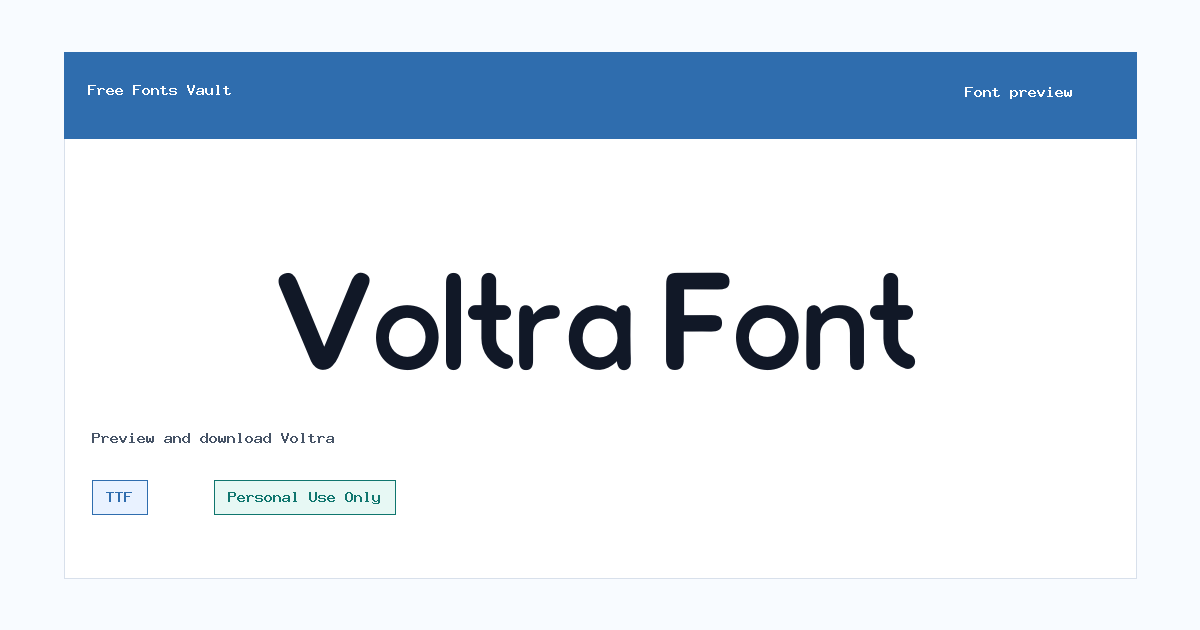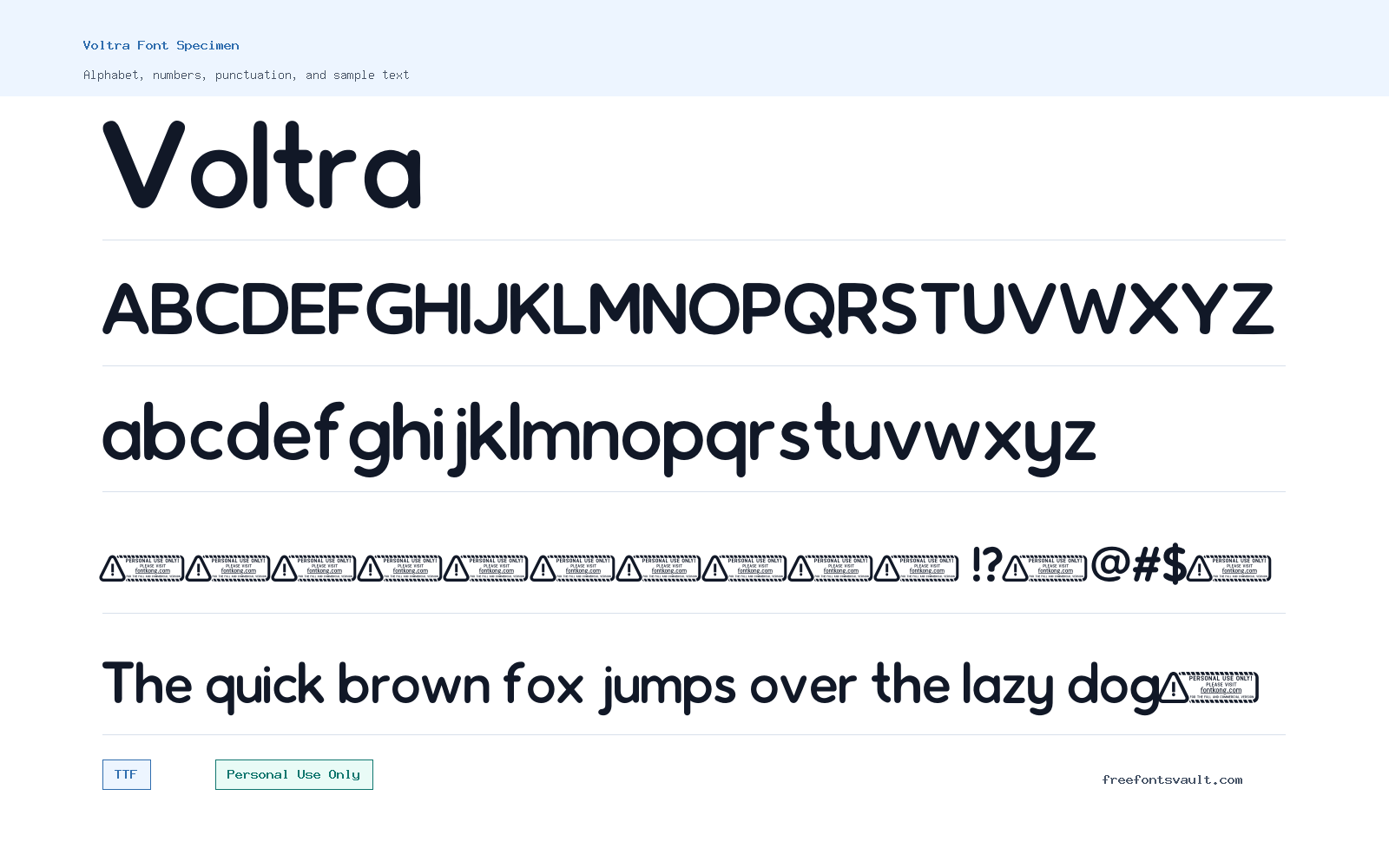
Voltra
Voltra is a display font from Kong Font with a bold, logo-ready feel. It is best approached as a font for short, visible text rather than long paragraphs, especially when you want a title, name, or graphic layout to stand out quickly.
About Voltra
Voltra works well for projects where the lettering needs to carry the design. The name and file label point to a logo-style font, and the regular TTF file gives you a straightforward way to test it in common design apps. Use the preview text to check how your own words look before downloading, because display fonts can change character depending on the length of the text, letter spacing, and the mix of uppercase and lowercase letters.
For logo concepts, Voltra is most useful at larger sizes where its shape and rhythm can be seen clearly. Try it with brand names, poster headlines, gaming-style titles, social graphics, YouTube thumbnails, event flyers, apparel mockups, and web hero sections. Keep the layout simple around it: a busy background, too many effects, or several decorative fonts can make the design harder to read. If you are testing it for a website mockup, use it for headings or graphic text rather than body copy. Pair it with a plain sans serif for menus, descriptions, buttons, and supporting details so the main title gets attention without making the whole design feel heavy.
- Display-focused personality suited to short titles, names, logo drafts, and poster text
- Useful for testing strong headline layouts where the font is the main visual element
- Best paired with a clean, neutral text font for captions and longer reading
- Logo concept sketches and personal branding experiments
- Poster headlines, event flyers, and bold title graphics
- YouTube thumbnails, social media images, and web hero mockups
- Gaming, tech, music, or entertainment-style display layouts when the style fits the project
Use Voltra at larger sizes and keep the wording short. Test your exact brand name, title, or headline in the preview tool, then adjust tracking and spacing in your design app. For cleaner layouts, pair it with a simple sans serif for supporting text and avoid using multiple decorative fonts in the same composition.
What kind of font is Voltra?
Voltra is a display-style font suited to short text such as logo drafts, titles, posters, and graphic headings.
Is Voltra good for body text?
Voltra is better for display use. For paragraphs, descriptions, menus, or small interface text, pair it with a simpler and more readable font.
How should I pair Voltra with other fonts?
Use Voltra for the main word or headline, then pair it with a clean sans serif for supporting text. This keeps the design readable and lets the display font remain the focus.